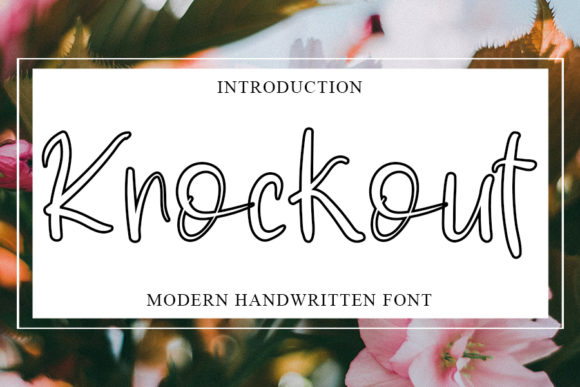
Knockout Font: Unleash Your Inner Artistry with a Flowing, Sweet Handwritten Masterpiece
Step into the realm of creativity with Knockout Font, a captivating script typeface that will ignite your artistic spirit. Inspired by the beauty of cursive handwriting, Knockout Font is a symphony of flowing lines and graceful curves, ready to add a touch of elegance and charm to your projects.
With its unique playfulness, Knockout Font invites you to explore a world of endless possibilities. Create eye-catching invitations, heartfelt greeting cards, or whimsical posters that will capture hearts. Its versatile nature makes it suitable for a wide range of projects, from personal crafting endeavors to professional marketing campaigns.
Knockout Font: A Font That Speaks Volumes
Knockout Font is more than just a collection of characters; it's an expression of your individuality. Whether you're a seasoned designer or a creative enthusiast, this font will empower you to craft messages that resonate with your audience.
Its distinctive style adds a personal touch to your designs, making them stand out from the crowd. Let your words dance across the page, imbued with the charm of handwritten elegance. Knockout Font is the perfect choice for projects where you want to evoke a sense of warmth, authenticity, and heartfelt connection.
Knockout Font: The Perfect Companion for Your Creative Journey
Knockout Font is not just a tool; it's a companion on your creative journey. It will accompany you as you pour your heart into your projects, helping you bring your visions to life.
With its delightful playfulness, Knockout Font will ignite your imagination and inspire you to explore new horizons of creativity. Let your ideas flow freely onto the page, knowing that Knockout Font will capture their essence and amplify their impact.
Embrace the beauty of Knockout Font and embark on a creative adventure where your imagination knows no bounds. Its flowing lines and graceful curves will transform your words into works of art, leaving an indelible mark on the hearts of your audience.
Discover Knockout Font today and unleash the boundless creativity within you. Let your designs blossom with charm and elegance, and let your words dance with the rhythm of handwritten artistry.